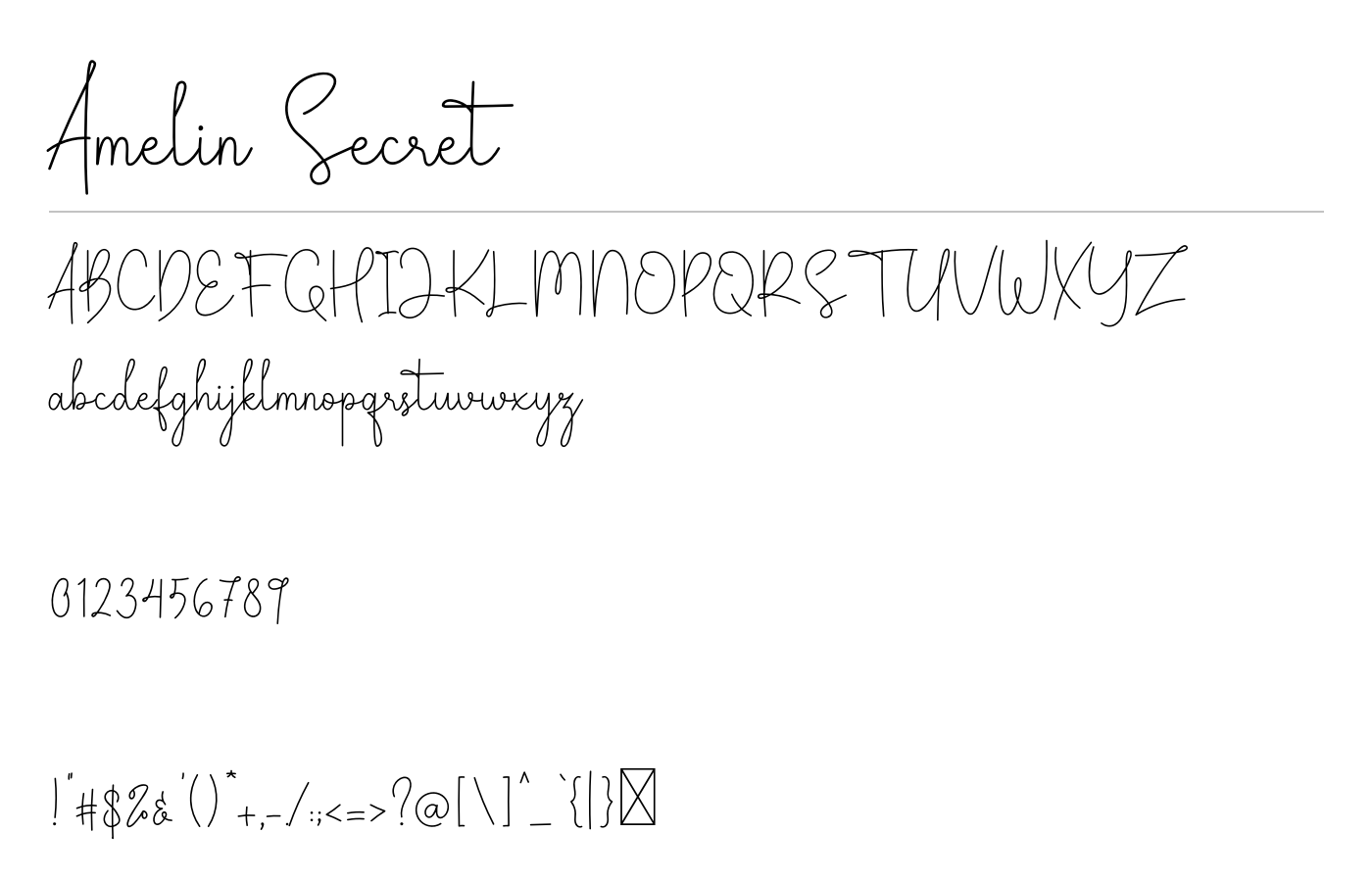
Amelin Secret is a playful and delicate handwritten script font characterized by its thin, light strokes and tall, narrow letterforms. Its whimsical, slightly irregular lines give it a personal and artistic feel, making it perfect for projects that want to convey creativity, intimacy, or a casual elegance. This font works well in invitations, branding for boutique or artistic businesses, and informal communications where a unique and friendly touch is desired.
Amelin Secret Font
About Amelin Secret Font